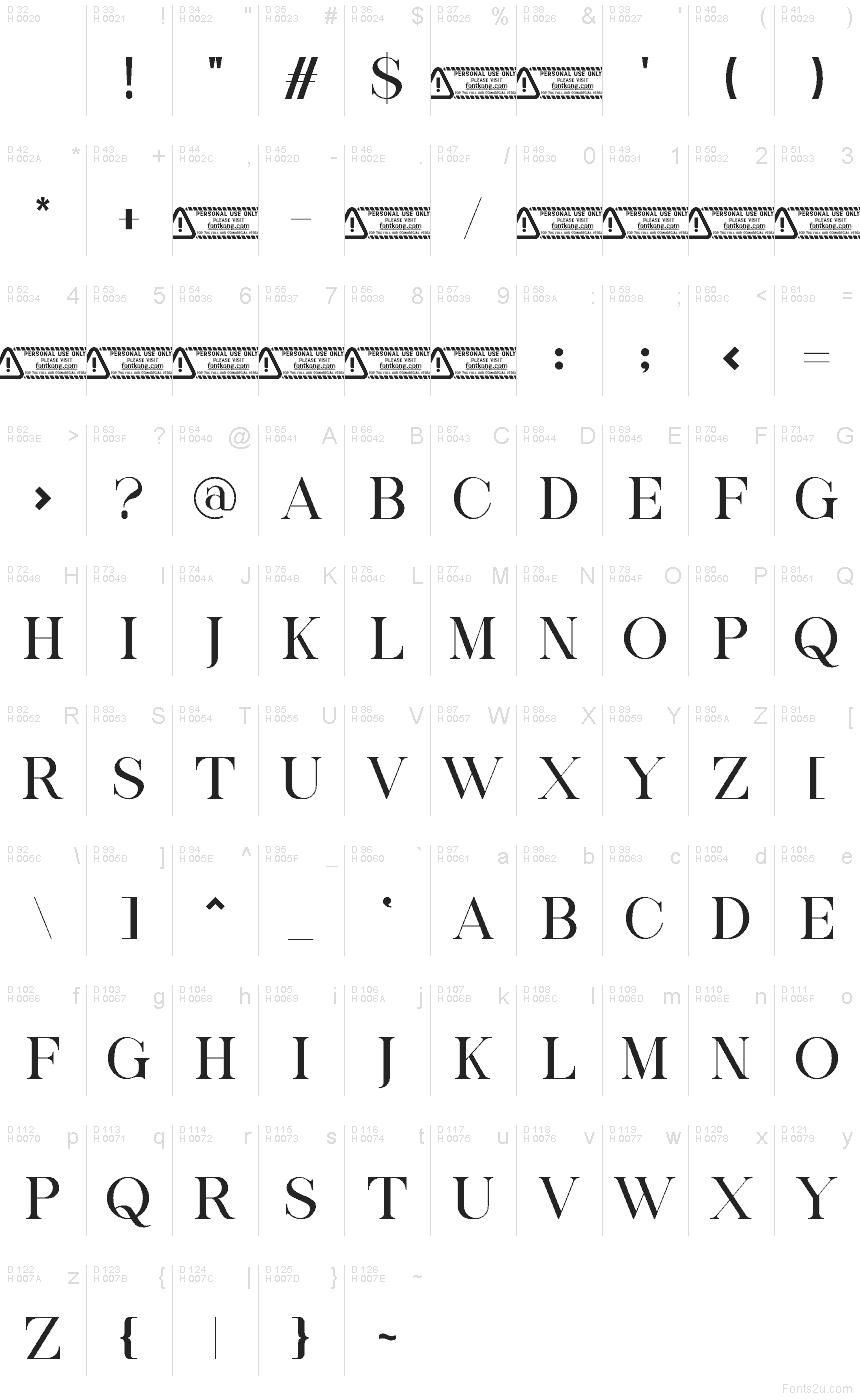
Lovely font, designed by Kong Font, is a classic serif typeface that embodies elegance and professionalism. Its refined and sophisticated appearance makes it perfect for conveying a timeless aesthetic in design.
This free serif font is ideal for magazines, book covers, branding projects, business cards, invitations, diplomas, academic papers, websites related to history or art, upscale restaurant menus, and official documents.